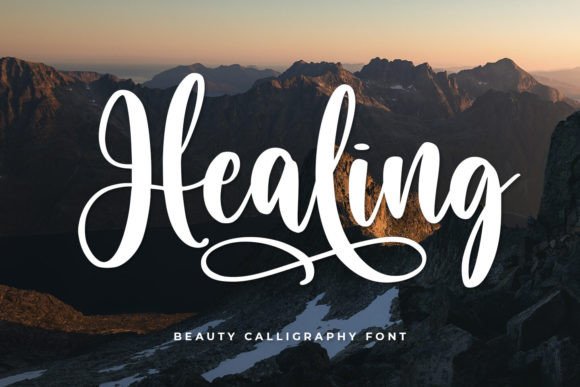
Dive into the world of elegance and sophistication with Healing Font, the captivating script font that will transform your creative visions into breathtaking realities. Inspired by the graceful flow of calligraphy, Healing Font is a visual masterpiece that embodies the essence of timeless beauty.
Designed by the renowned Abodaniel, Healing Font is a symphony of curves and delicate strokes. Its fluid and graceful characters dance across the page, evoking emotions and leaving a lasting impression on your audience. Whether you're a creative professional, a DIY enthusiast, or simply a lover of beautiful things, Healing Font is your passport to a world of endless possibilities.
With its versatility, Healing Font seamlessly adapts to a myriad of design projects. Create stunning wedding invitations that capture the essence of love and romance. Let your quotes and sayings come alive with an artistic flair. Elevate your wall decorations with mesmerizing words that transform your space into an art gallery. Design logos and branding elements that exude sophistication and elegance. Unleash your creativity on t-shirts, tote bags, cards, banners, and social media posts, leaving a lasting impression wherever your designs go.
Healing Font's charm lies in its versatility and meticulous attention to detail. Each character is lovingly crafted, featuring alternate characters that add a touch of individuality and flair to your creations. Experiment with different combinations and styles to create unique and captivating designs that reflect your personality and vision.
So, embark on a journey of creative exploration with Healing Font. Let its beauty inspire you, its fluidity guide you, and its versatility empower you to create designs that captivate and enchant. Embrace the magic of Healing Font and unlock a world of endless creative possibilities.